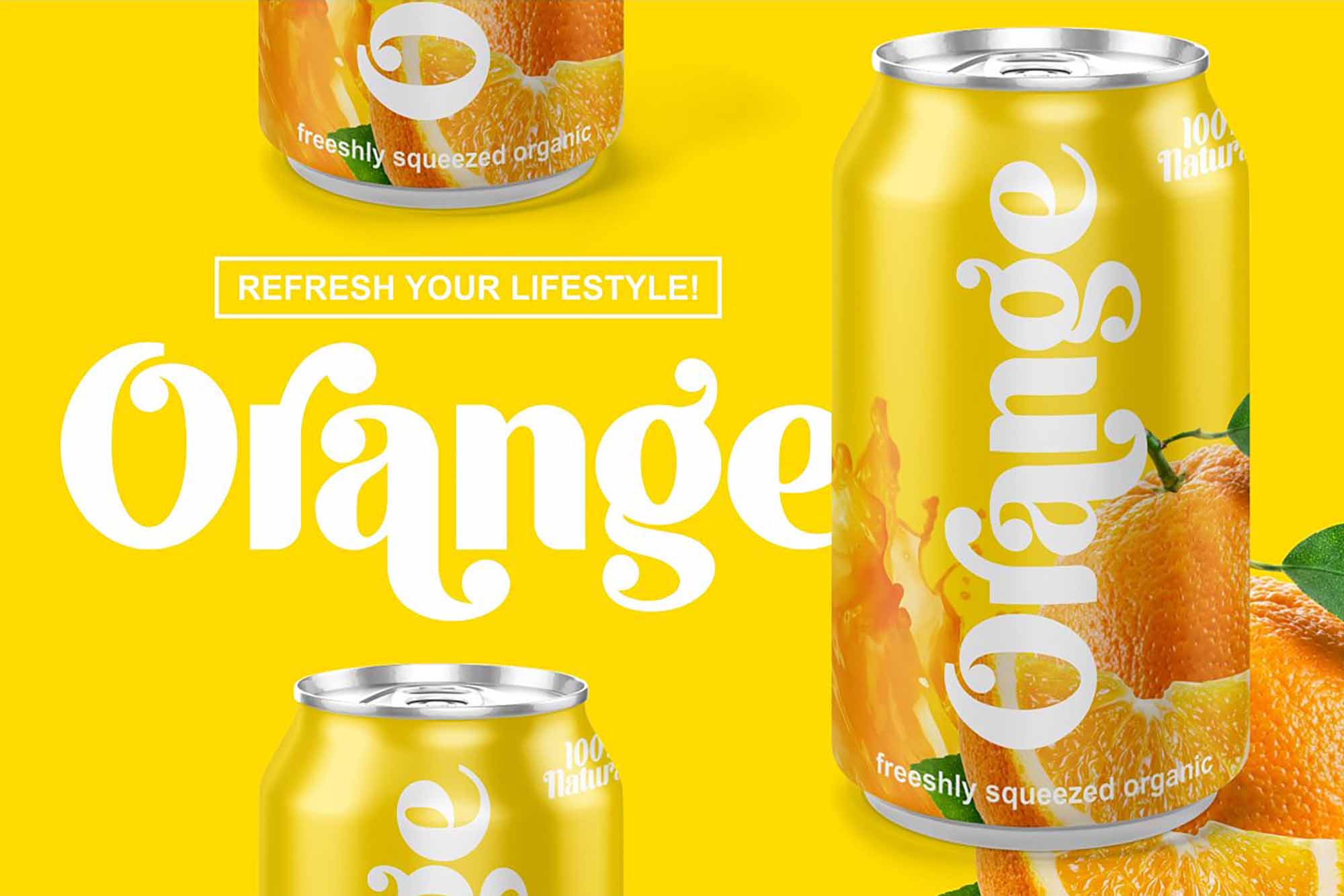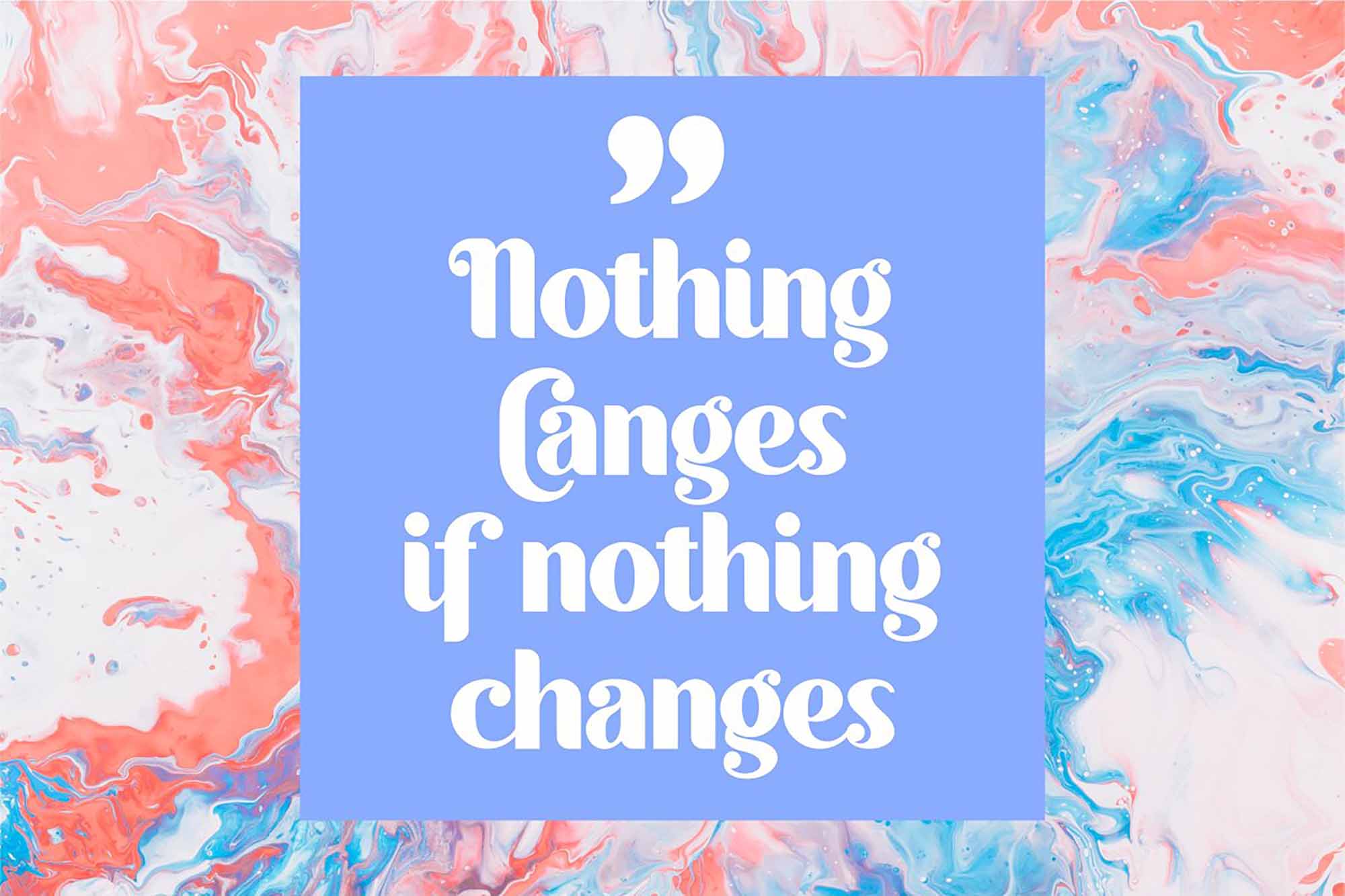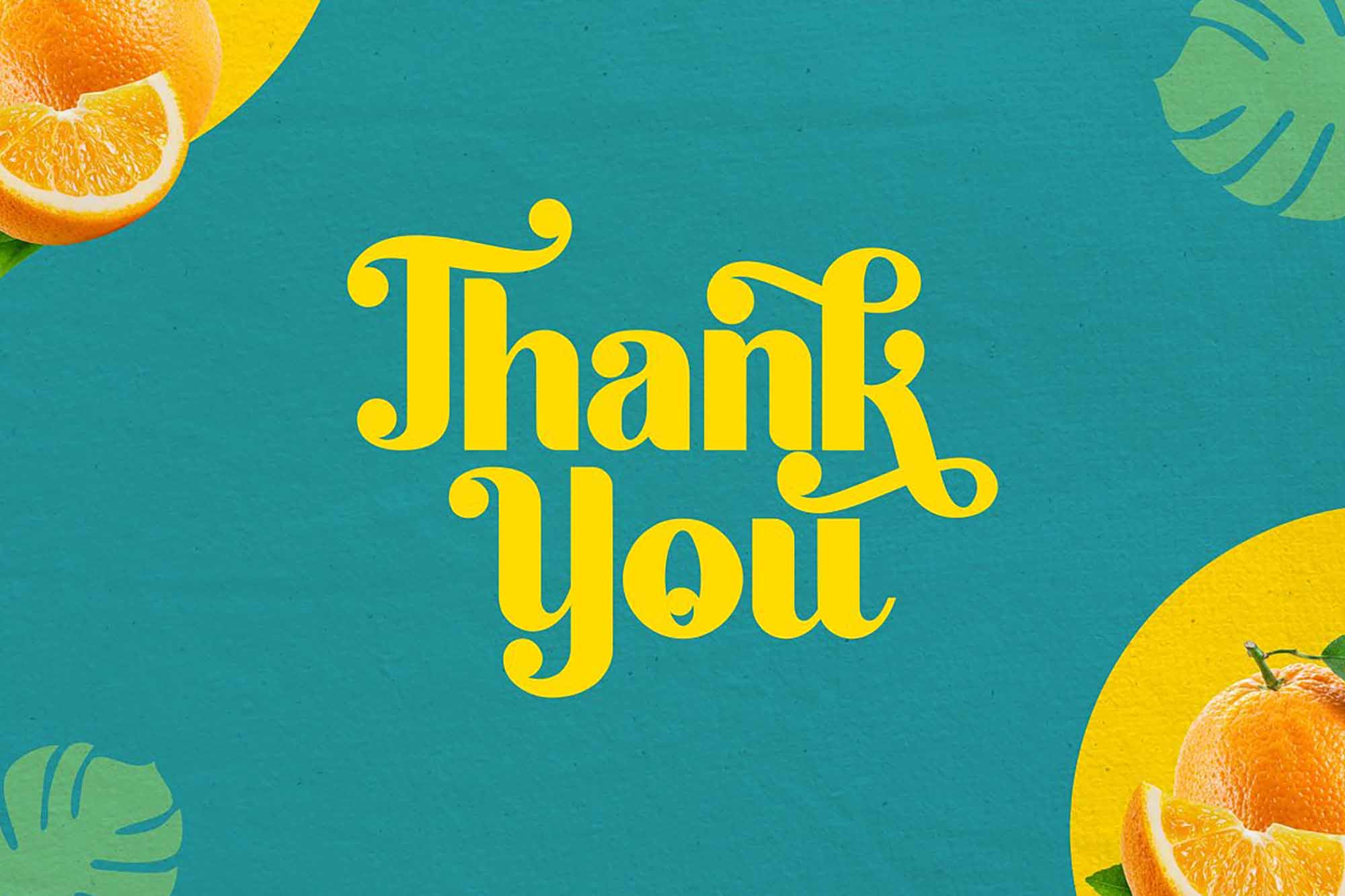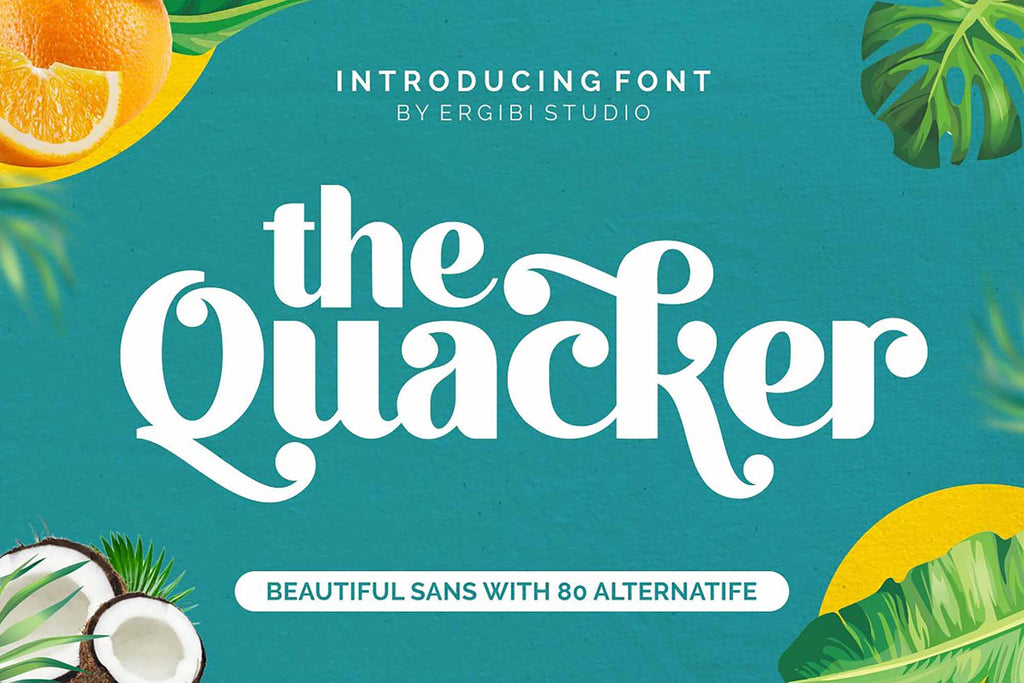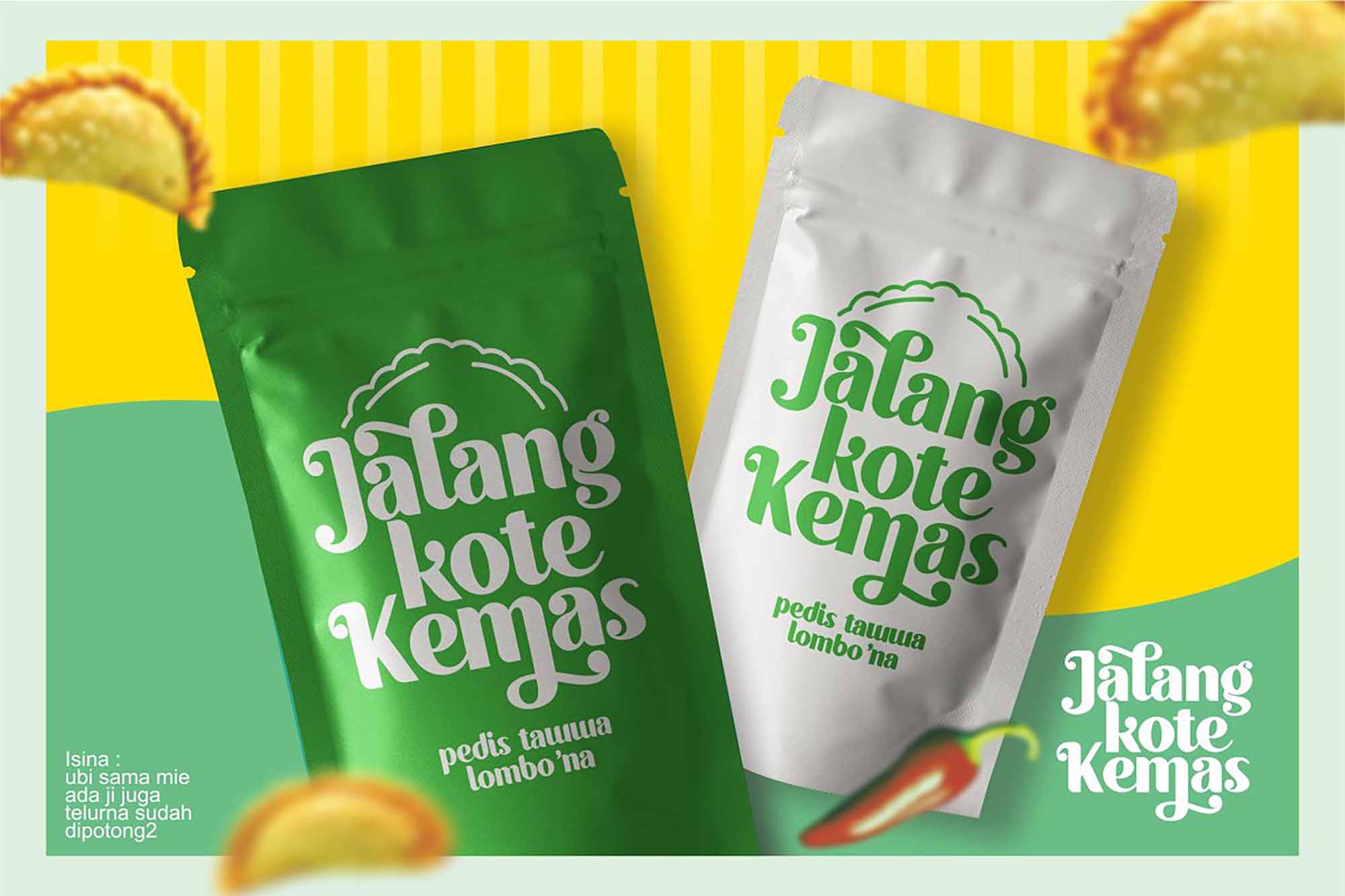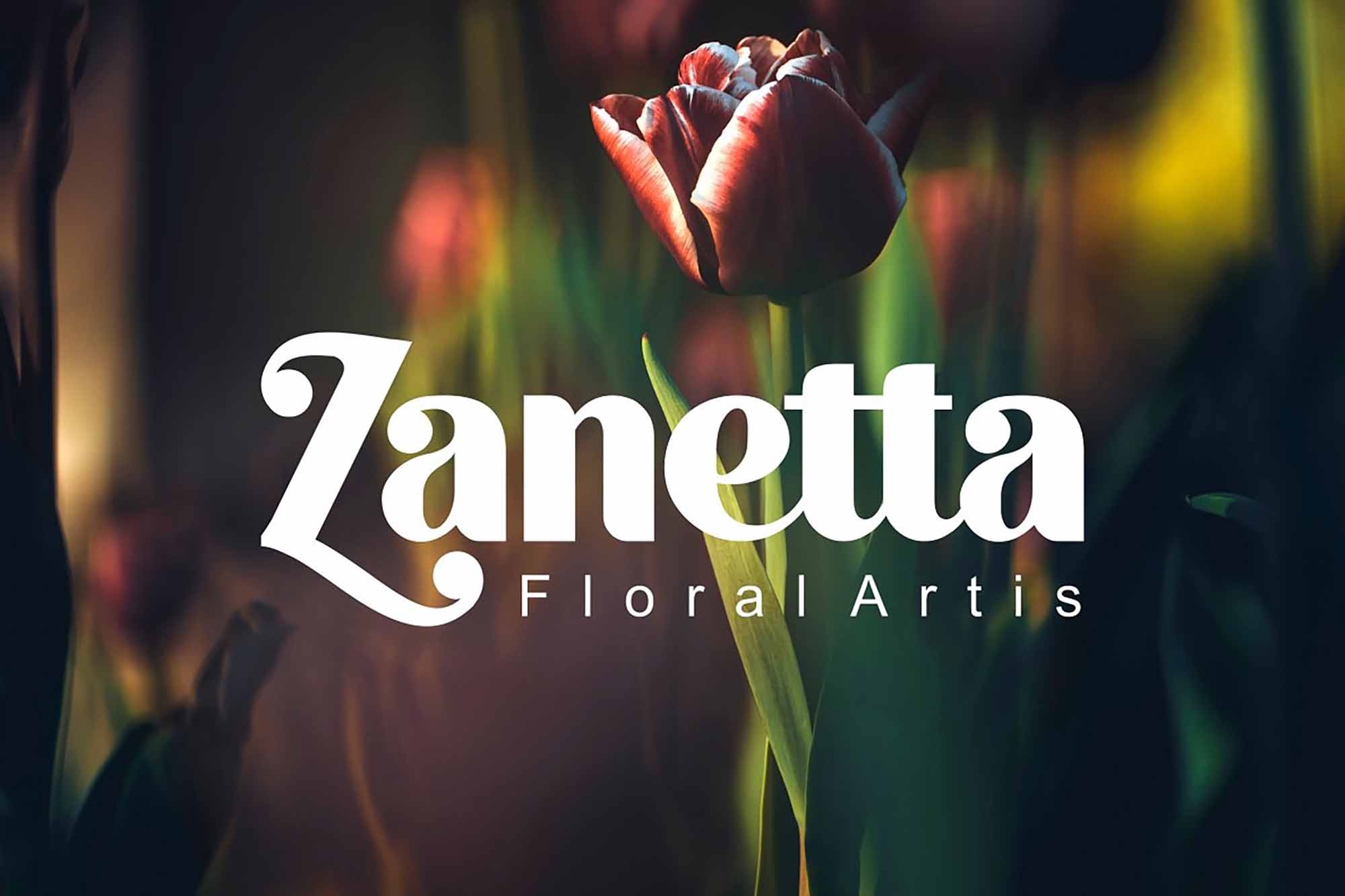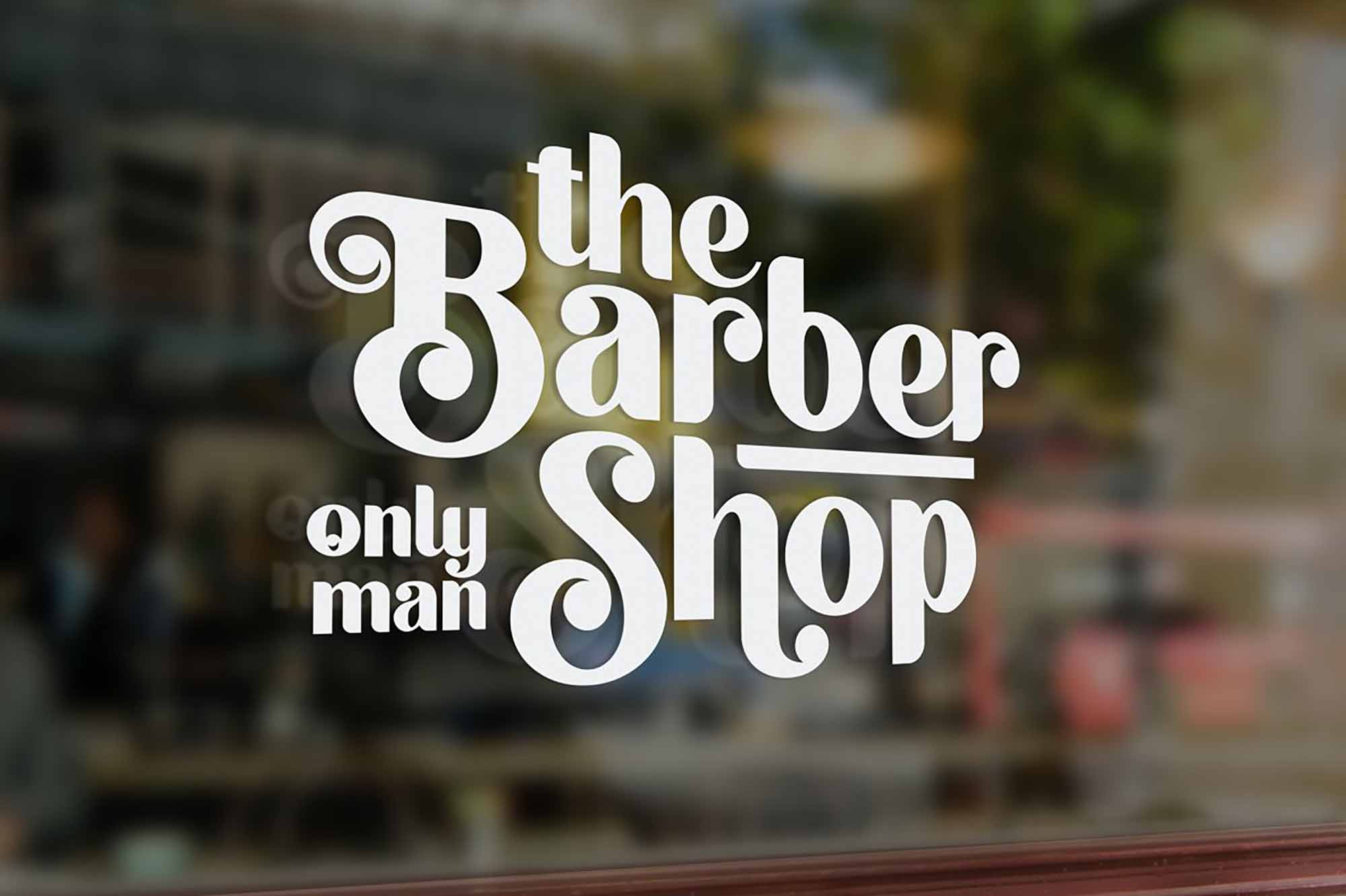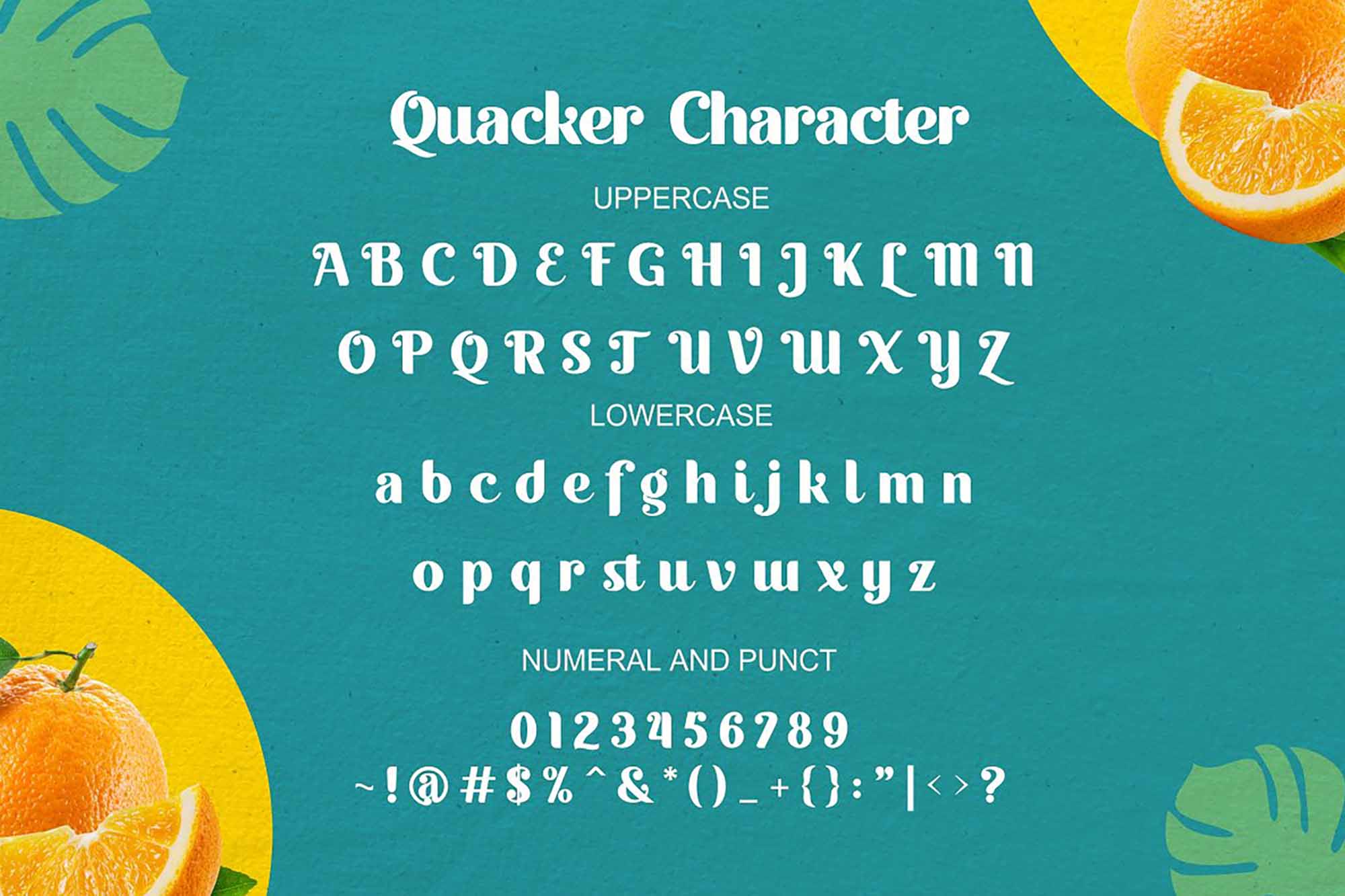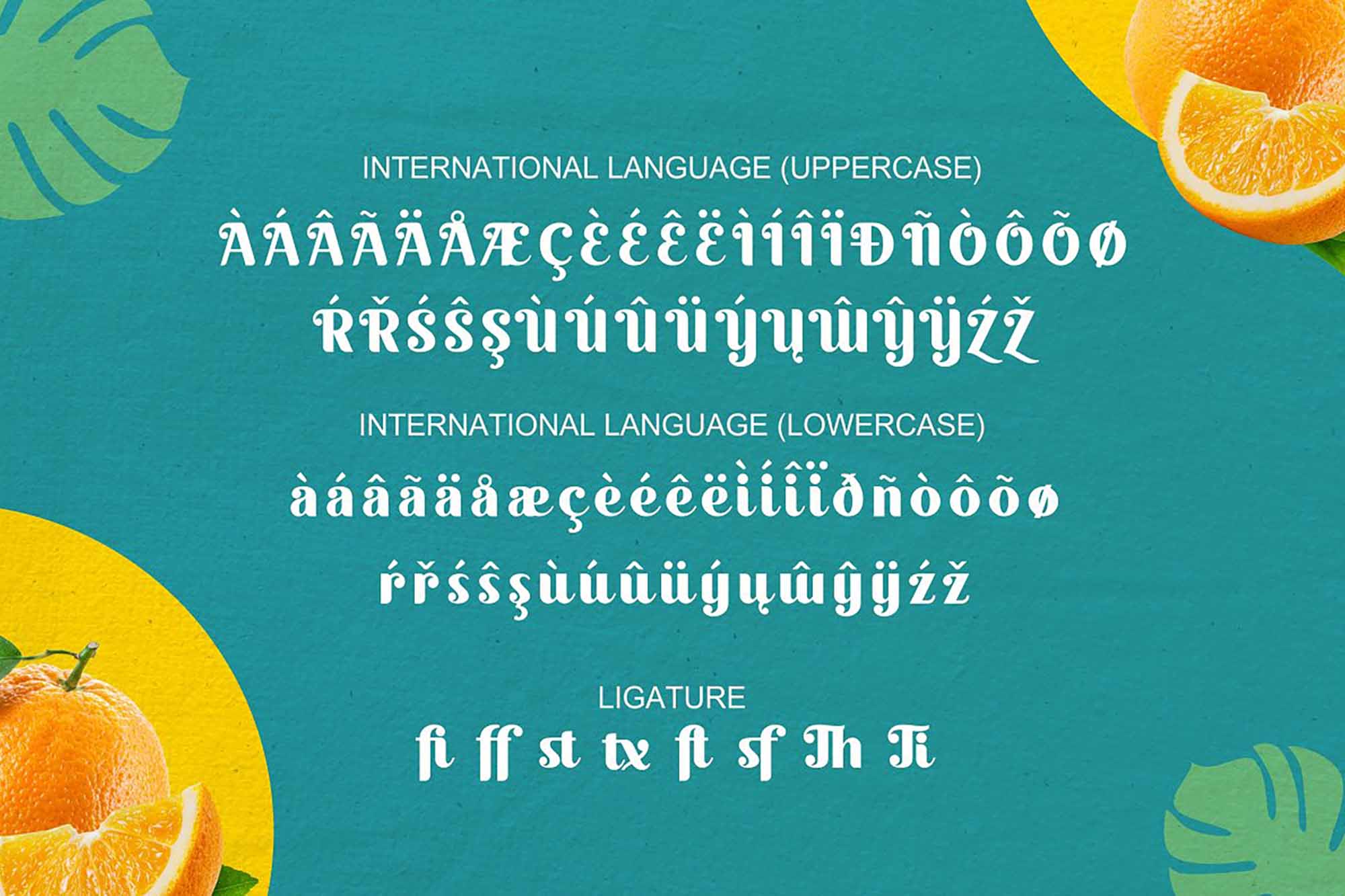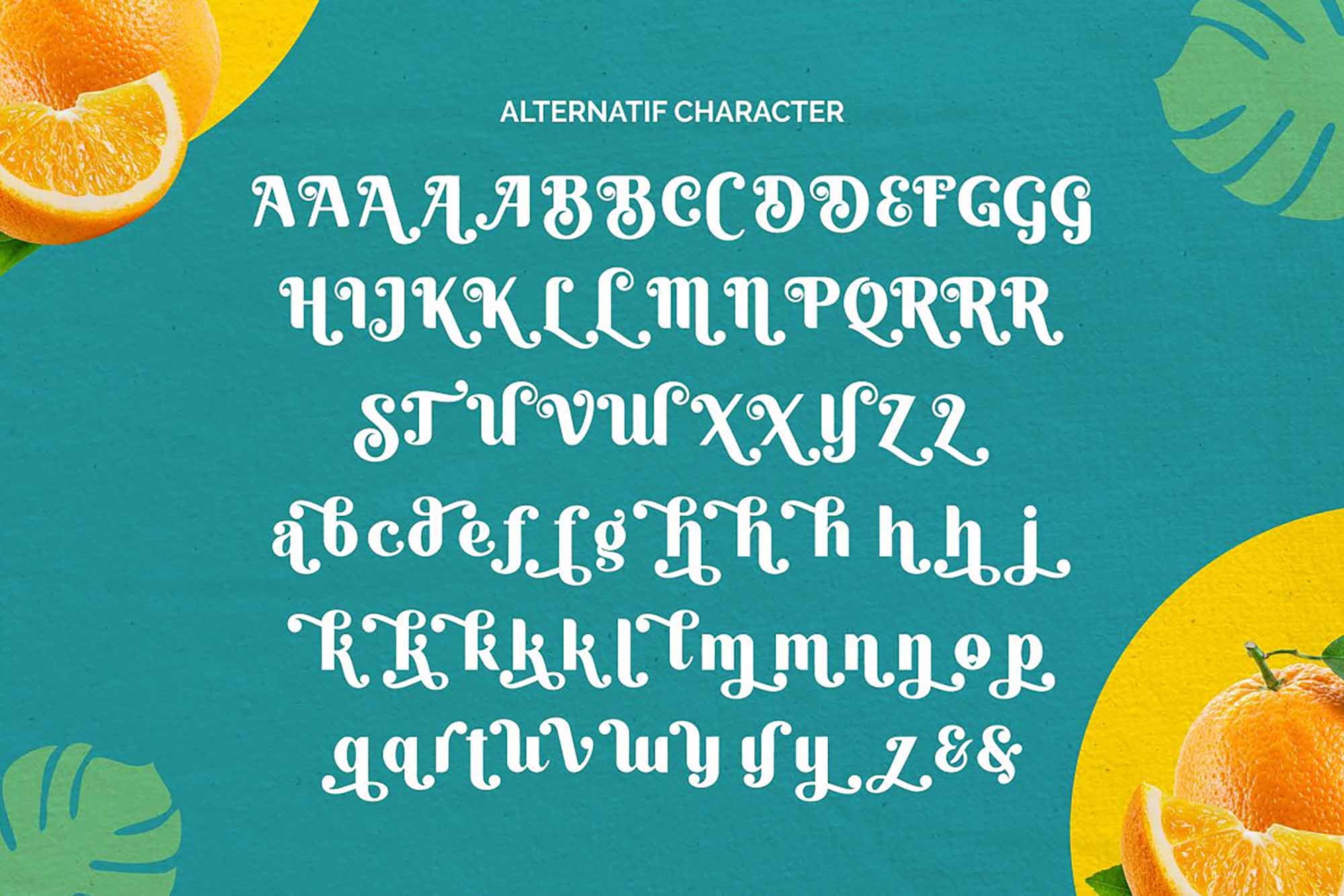
Quacker Sans Serif Font
There is a science behind the fonts that we see and how they affect us, from our preferred font we pick in Microsoft Word to the daily updates we read on social media. They can make us feel intrigued, bored, or excited, so for a new impression with a new design, we share Quacker.
With over 80 alternative characters and a neat set of uppercase and lowercase letters, numbers, punctuation marks, symbols, and multi-lingual characters, Quacker, the sans serif font provided by Ergibi Studio, brings out the delight in the most mundane of things. Use it for friendly invitations and Facebook cover images, add it to your book covers, or make it part of your stationery projects. You can get coffee anywhere these days but what matters are the designs you offer. So why not upgrade your menus or your takeaway cups and introduce your brand with these fun characters? Presented in OTF and TTF formats, this freebie is available for personal use only.